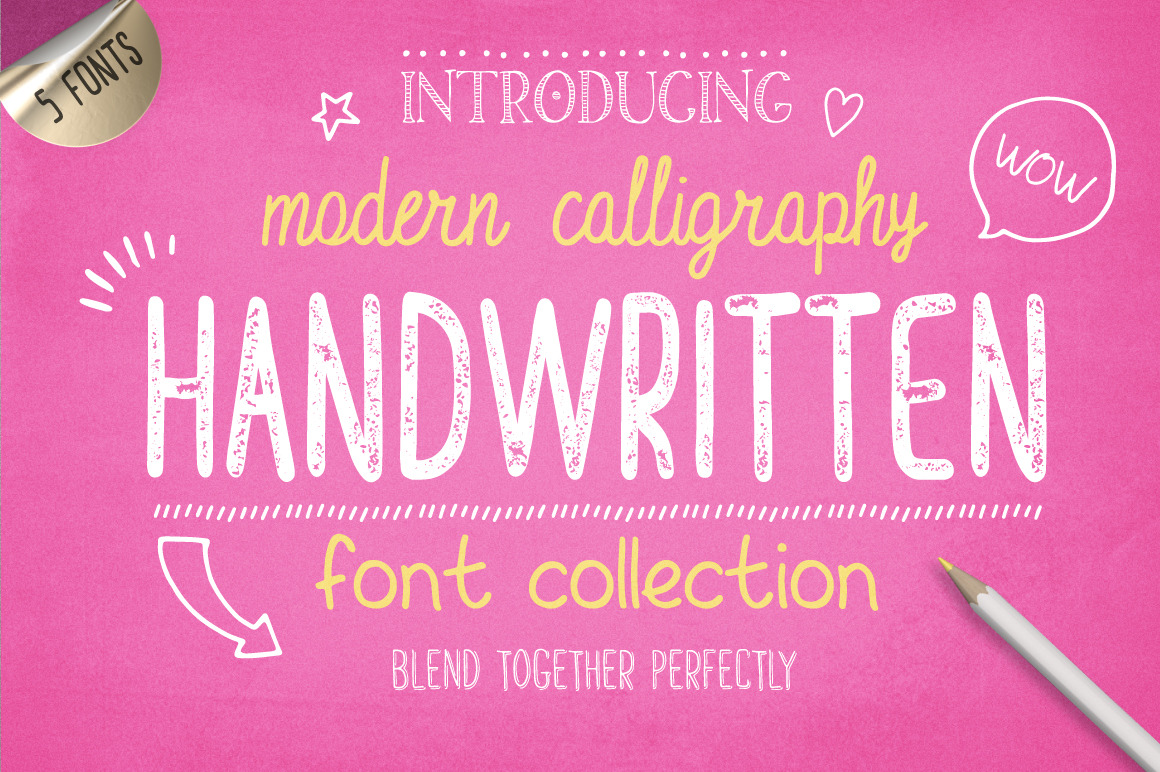
Handwritten Font Collection
Presenting the Handwritten Font Collection - It's 5 hand drawn fonts and 5 alternative styles. These handwritten fonts blend together perfectly and perfectly fit for any of your project.
- English Castles: This sleek and slim Script Font perfectly combined with any other font in package.
- Windsor Great Park: Hand drawn Uppercase Sans Serif Font.
- Windsor Great Park Stylistic One: For this font I added a bit of volume.
- Windsor Great Park Italic: The same volume but also and Italic.
- Fish and Chips: Funny and cute handlettering font.
- Worcestershire Sauce: Also manually created Uppercase Display Font.
- Worcestershire Sauce Press: Perfect for writing on chalkboard.
- Cornish Pasty: Hollow hand drawn Font.
- Cornish Pasty Stylistic One: These strips... Add font on your poster.
- Cornish Pasty Stylistic Two These points... Decorate with these font any card.
- Hand Drawn Elements: 105 Free Elements. Created specifically for this package. To complement and complete your design.